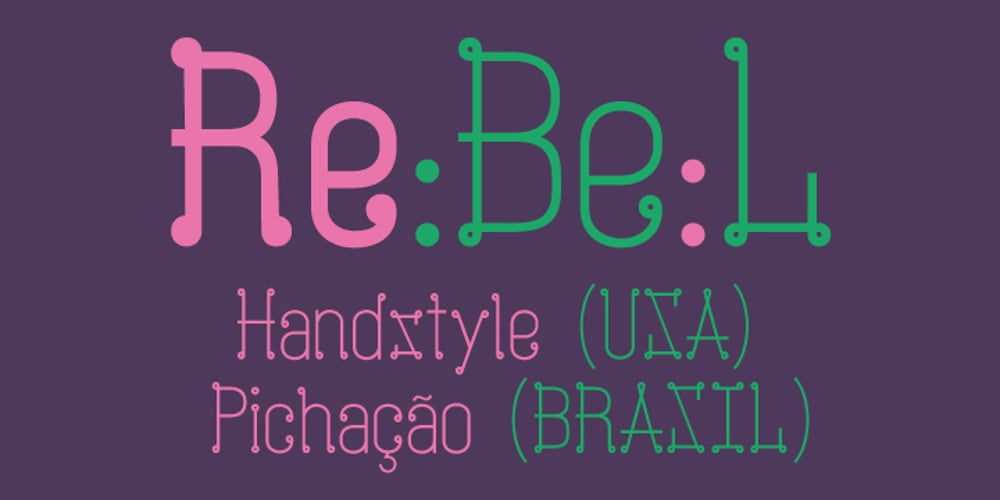
Pandilla
Pandilla font
Pandilla Font Family was designed by Cristian Vargas and published by Typozon. Pandilla contains 3 styles and family package options. Pandilla was inspired from personal sketches and letters developed by the past of the years making graffiti art. the forms of this typeface are related with the graffiti and street scenes of the different cities around the world and takes traits and elements of the Handstyle, Classic graffiti, Brazilian Pichação and different urban letters. This font has a variety of objectives, the first is to create a legible version of the graffiti inscriptions and use this typography for different print pieces, the second objective is to give back the essence of the meaning of the word “Pandilla”, this word has been transformed for the past of the decades and now is associated with negative things. The original meaning of this word is a group of people who feel a close relationship, which usually have a friend or close interaction with ideals or common philosophy among members. Pandilla is to be used in different print purposes and graphic pieces like: Posters, Brochures, Magazines, Business cards and different stuff that uses big type sizes and big display formats.